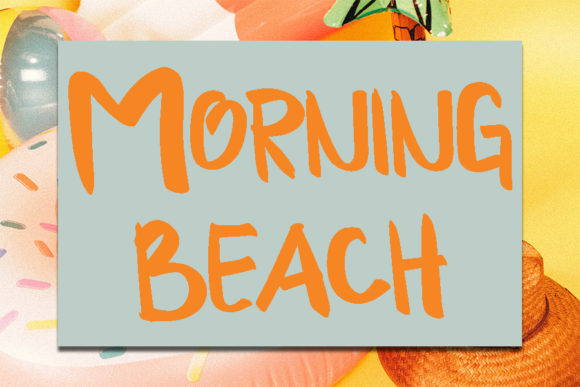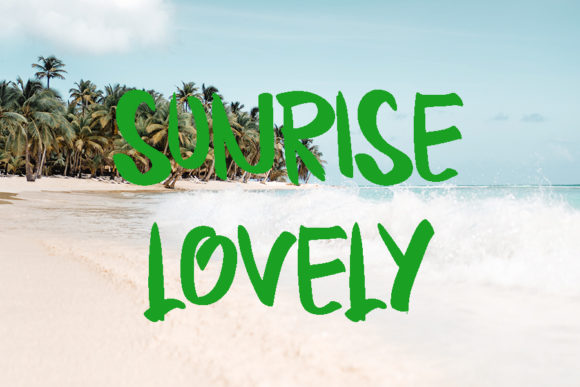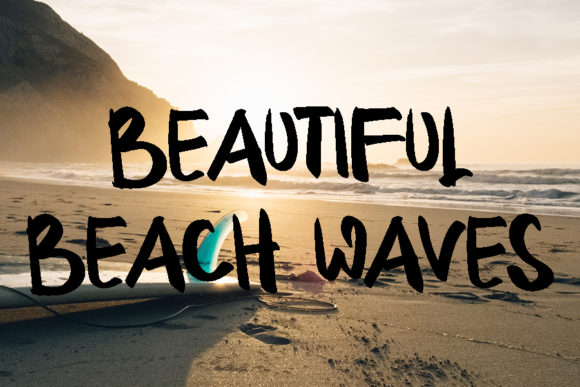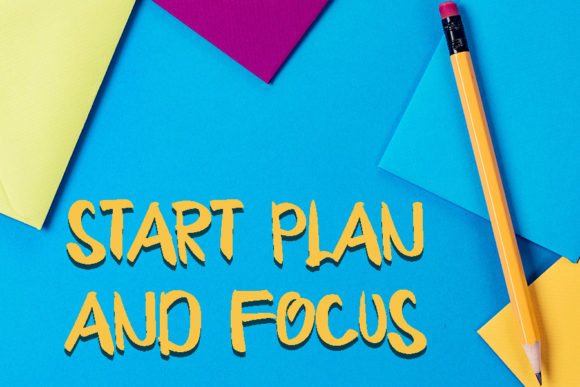
Introduction to Hello Morren Font
Hello Morren is a unique display font.
It features a timeless style and itโs perfect for logos, greeting cards, branding, social media posts and anything that requires a casual touch .
Key Features of Hello Morren Font